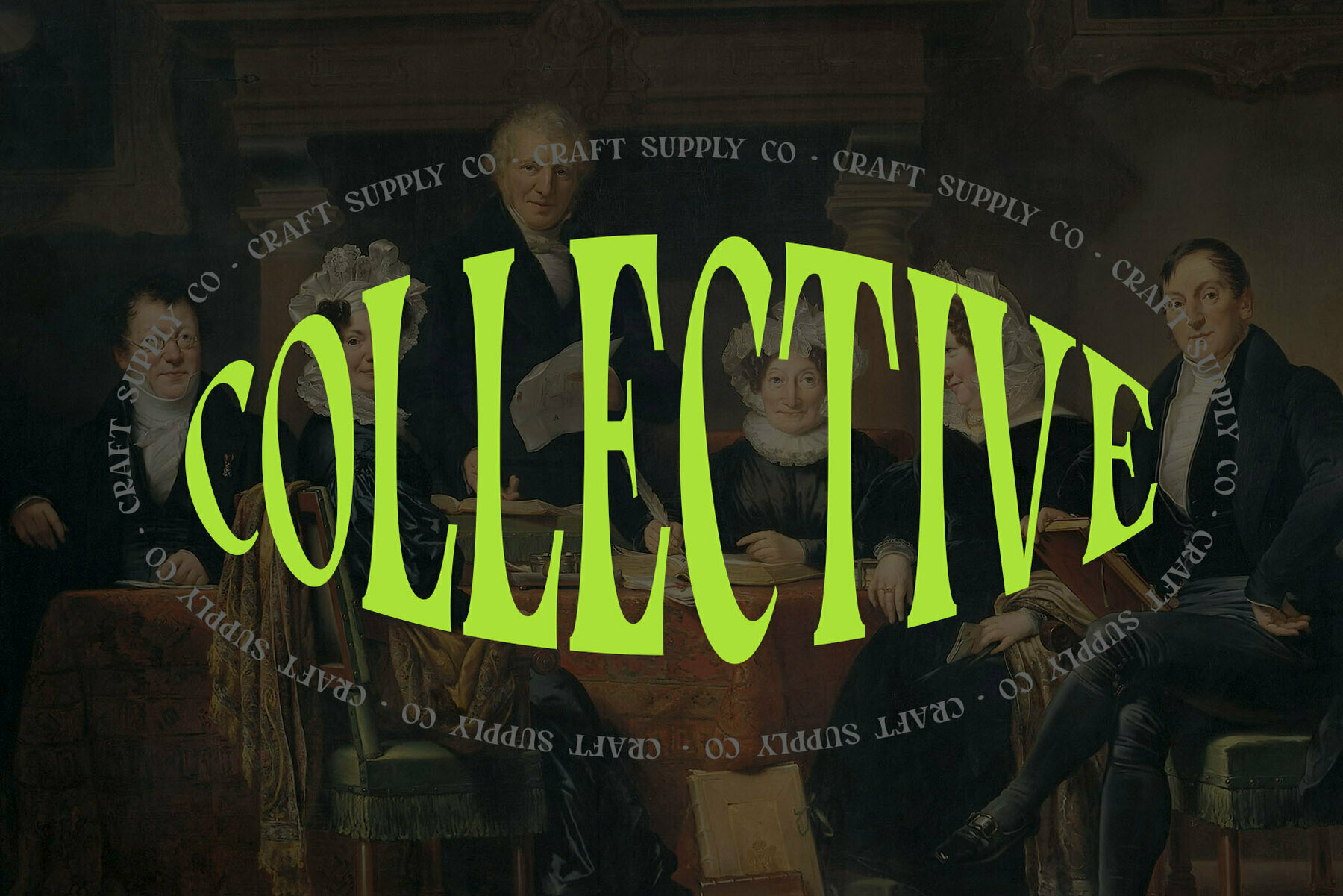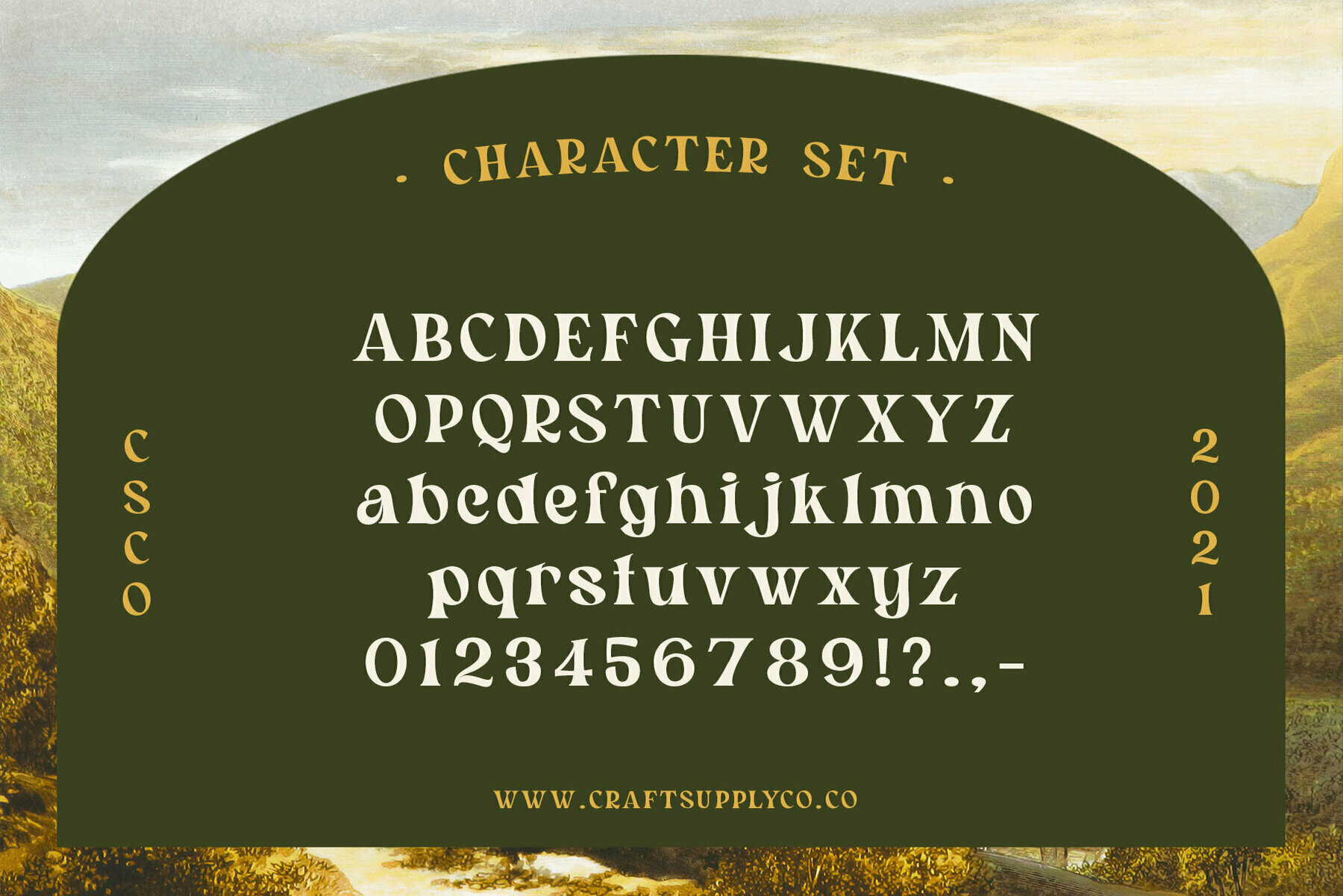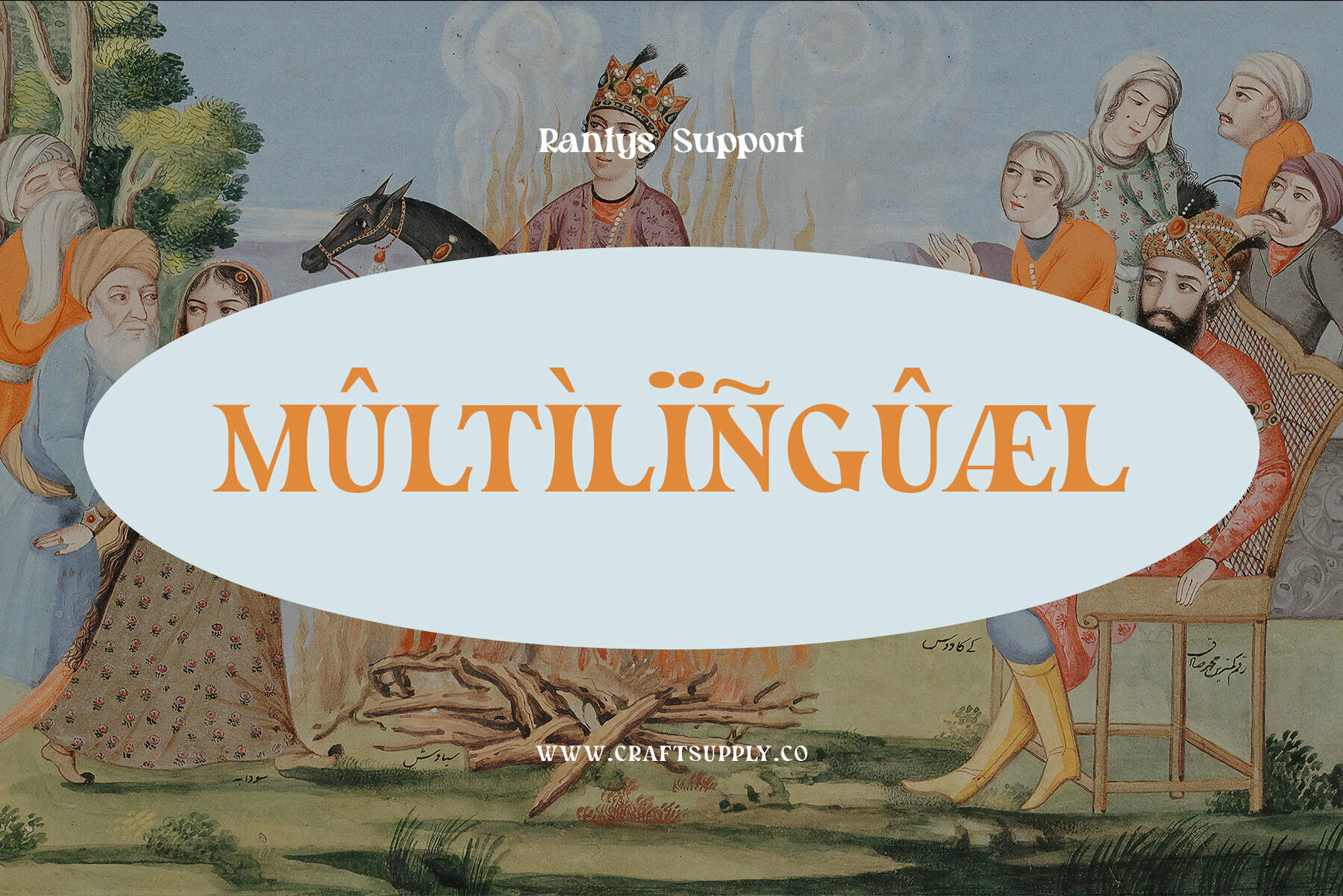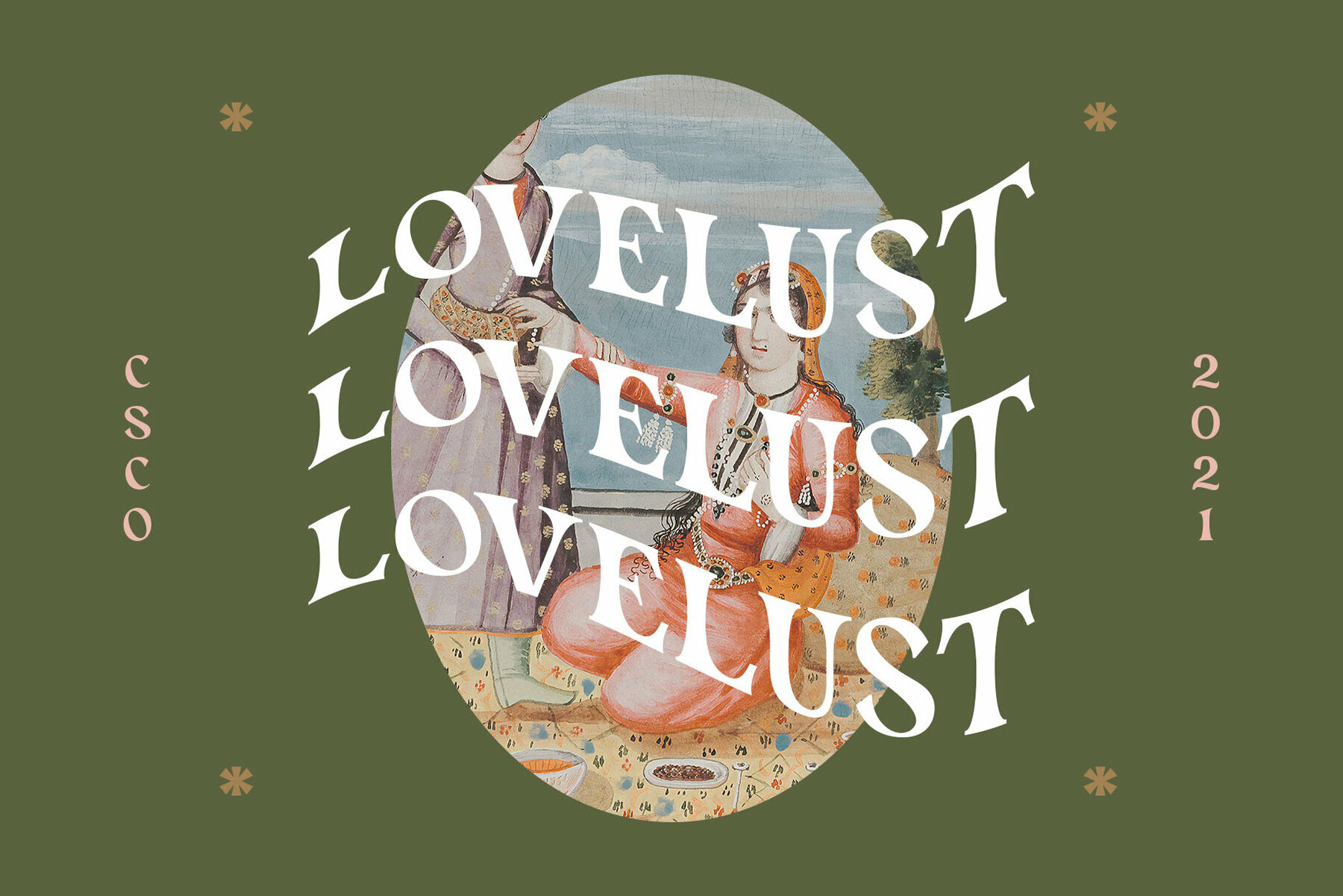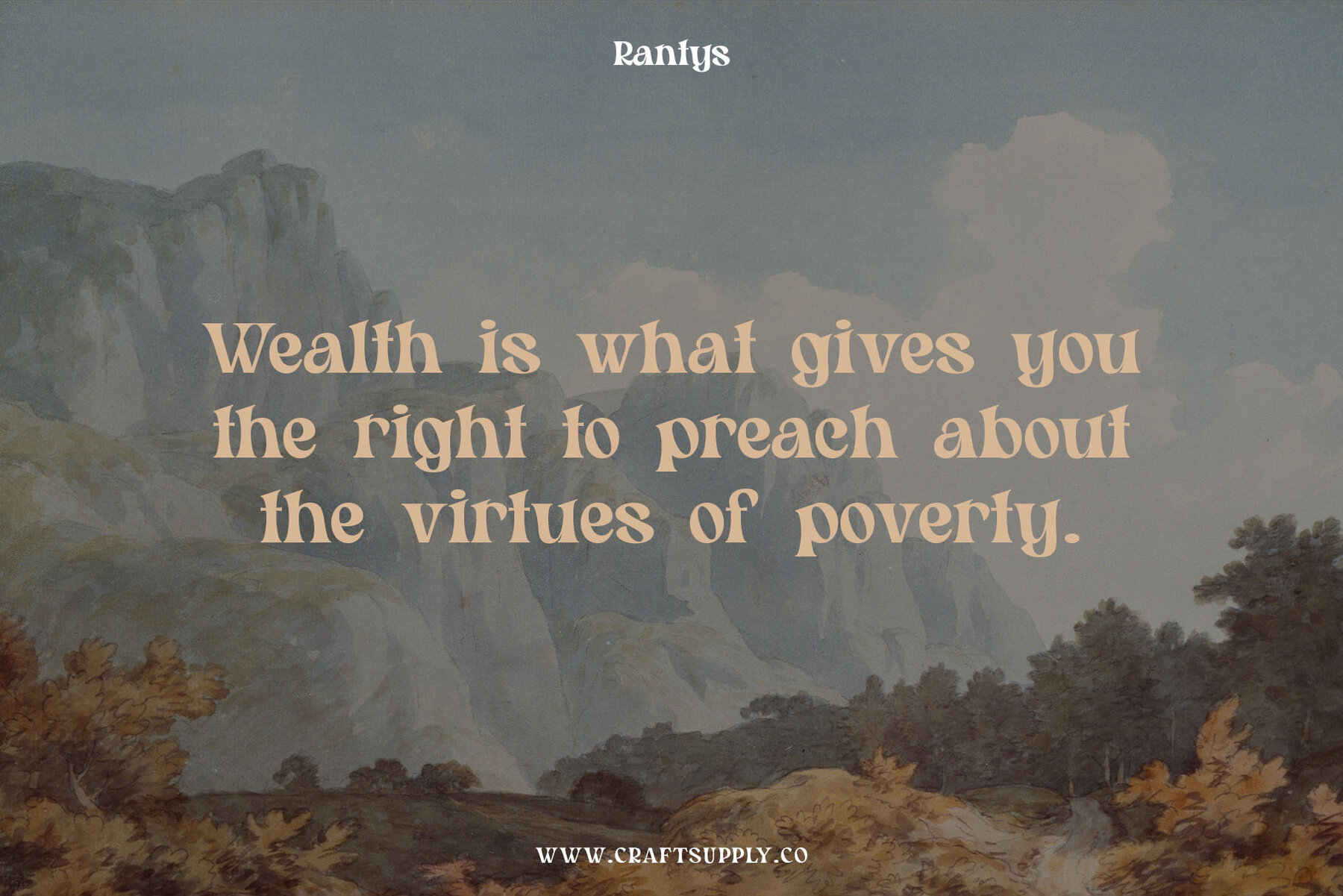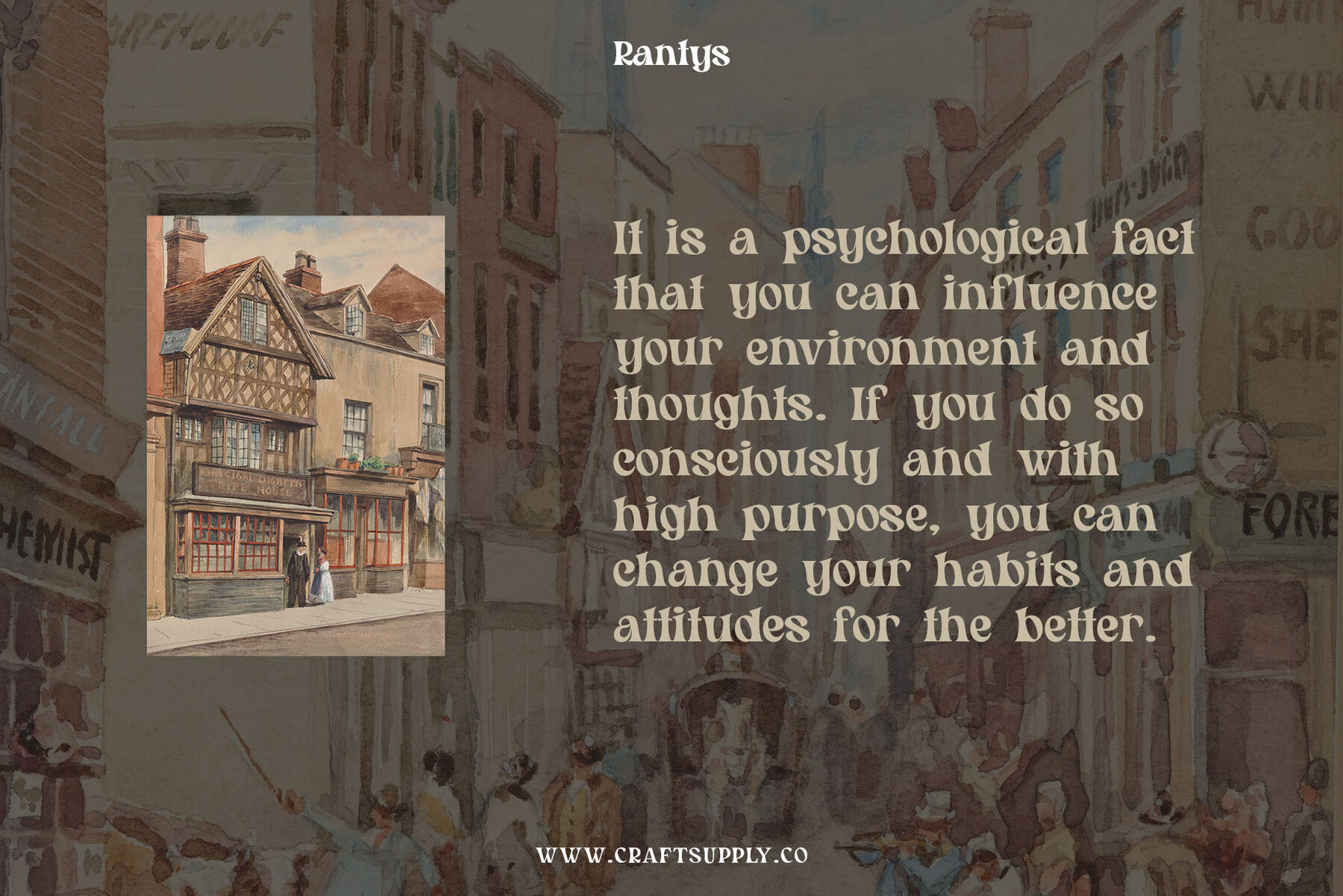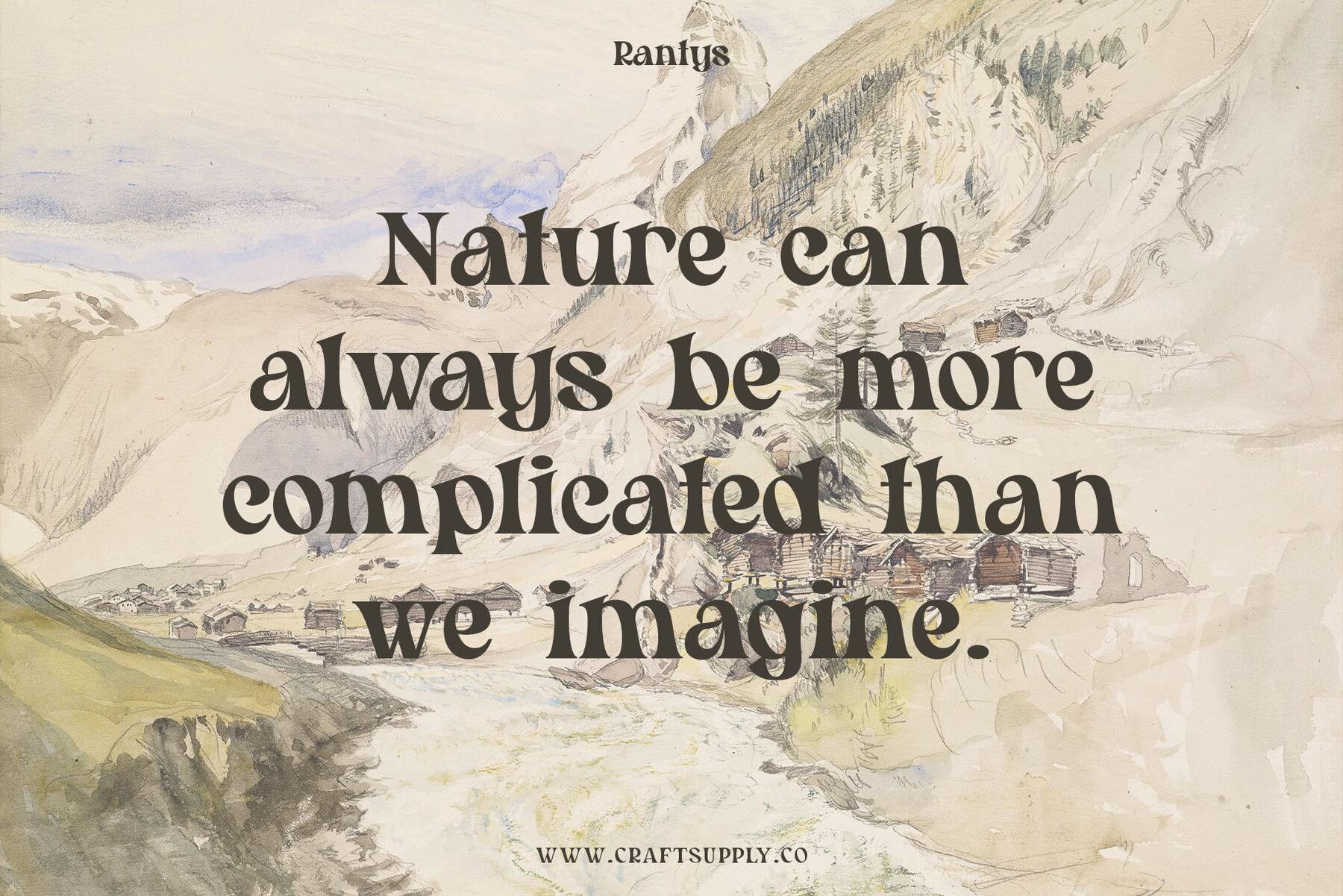
Rantys Font
Rantys Regular
Rantys offers a distinct blend of thick and thin strokes, mixed with an old-school serif style, delivering a quirky touch to your design projects. Its unique characteristics make it ideal for a variety of creative pursuits, from print materials to digital design efforts. Rantys is versatile enough to enhance your greeting cards, package designs, brand identities, and so much more. For those looking to infuse their work with a trendy, retro vibe, Rantys is the perfect solution. Whether you're crafting a book title, developing a wedding invitation, or pursuing a DIY project, this typeface adds a compelling visual element to your compositions. Features: Rantys requires no special software, ensuring accessibility for every designer. Dive into your next project with confidence, leveraging the unparalleled charm inherent in this quirky serif typeface.Rantys: Quirky Serif Typeface for Creative Design